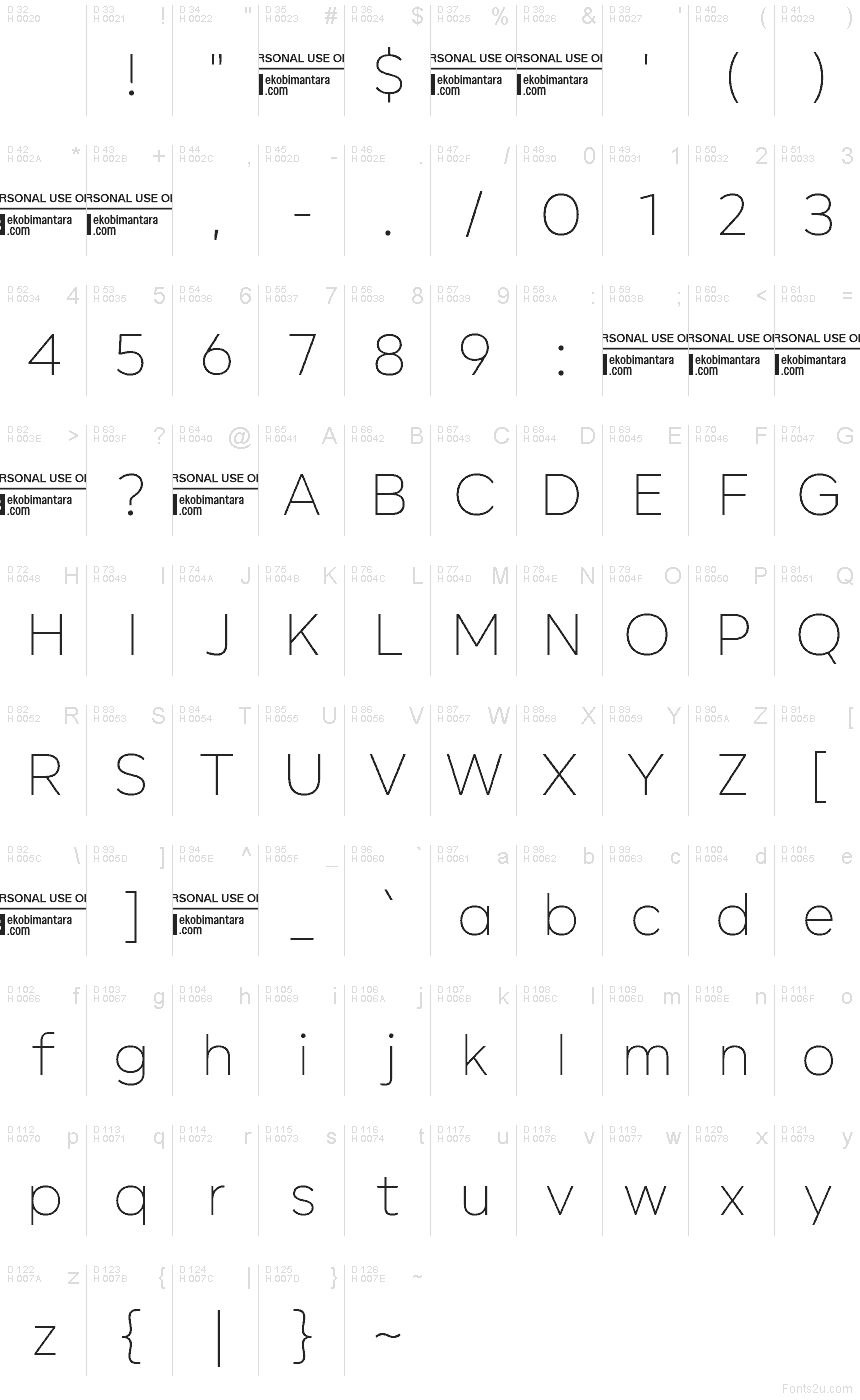
Geova Trial Thin
Geova Thin font by Eko Bimantara is a free sans serif font. Part of the Geova family, it solves a familiar challenge: you want a whisper-light look without losing clarity. Its ultra-fine strokes, clean geometry, and relaxed spacing create an airy rhythm that feels premium, not fragile—think crisp lines with just enough warmth to avoid sterility.
Using Geova Thin, headlines feel weightless yet readable, making it a natural fit for fashion branding, tech landing pages, cosmetics packaging, portfolio sites, event posters, and minimalist UI headers. This free font shines at larger sizes; pair it with Geova Regular (or a calm grotesk) for body text to keep the voice consistent and polished.